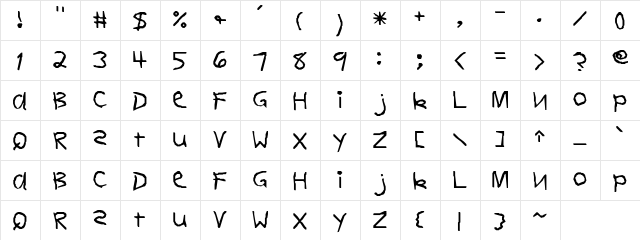
FirstGrader-Normal
Design Context for FirstGrader-Normal Typeface
FirstGrader-Normal is a composed and adaptable typeface that performs quietly and consistently across a wide range of design contexts.